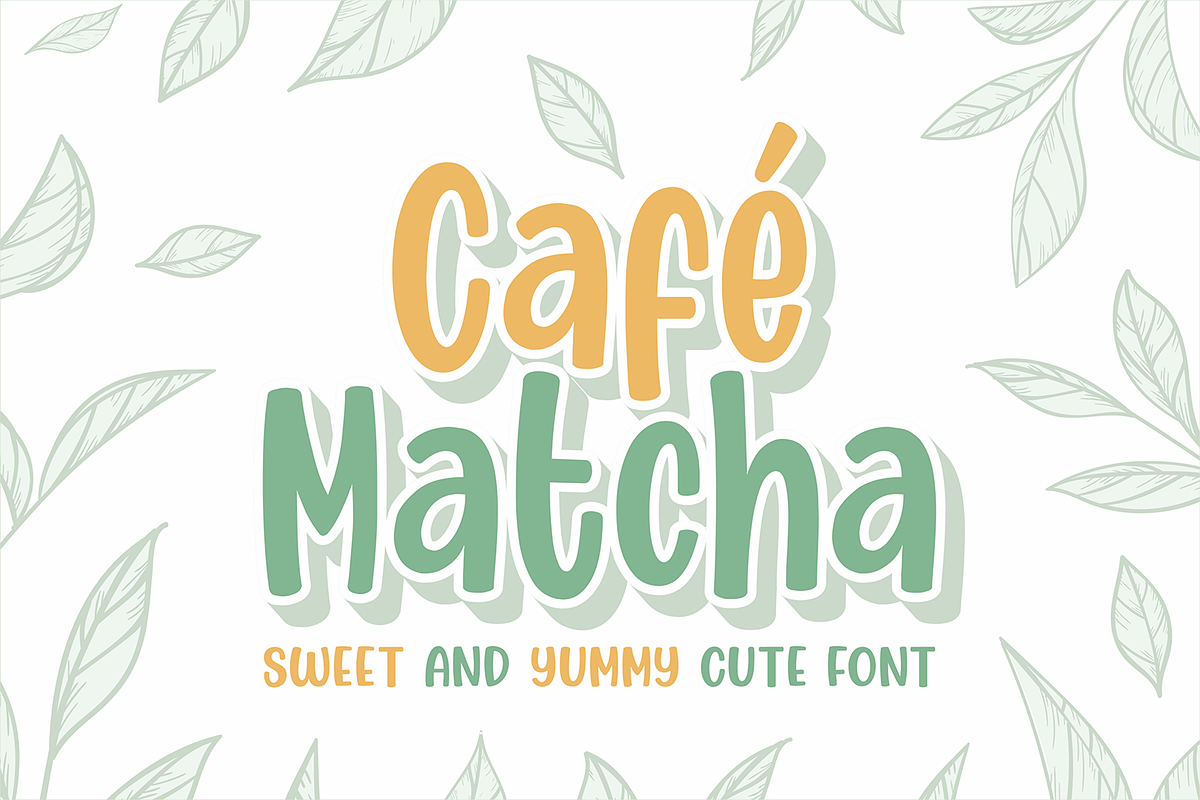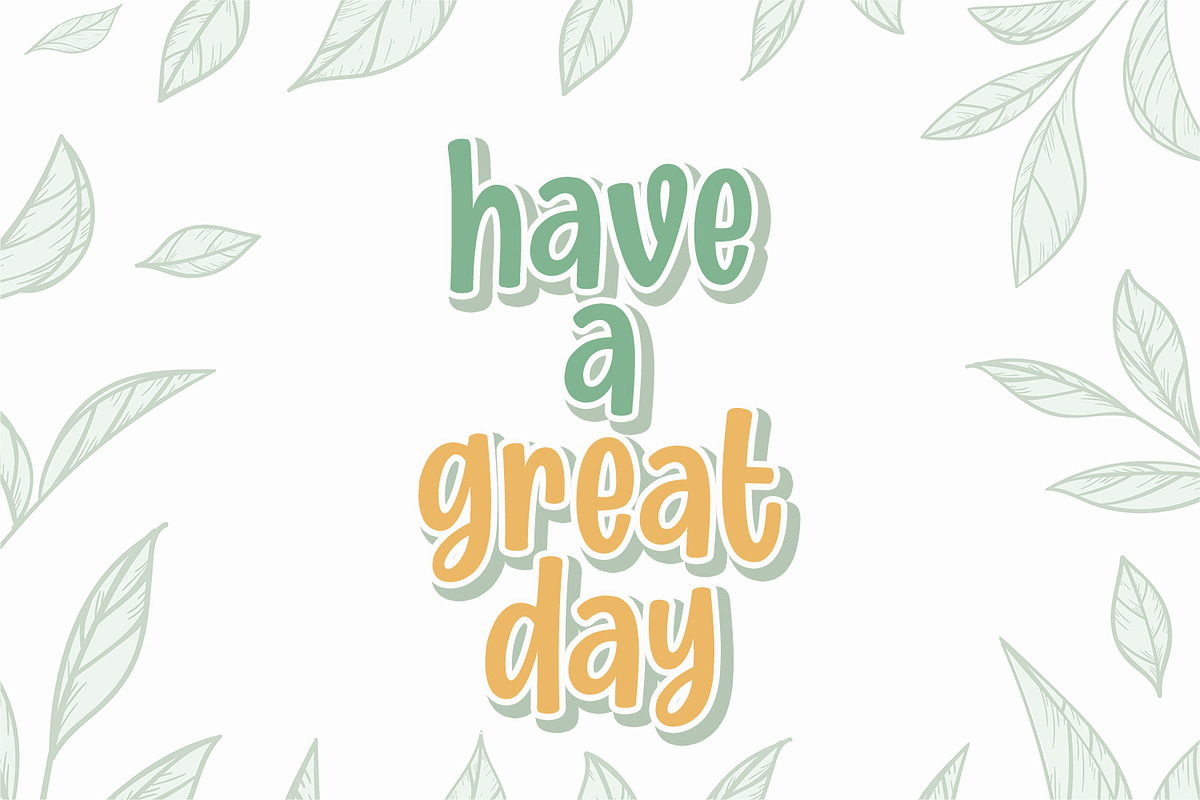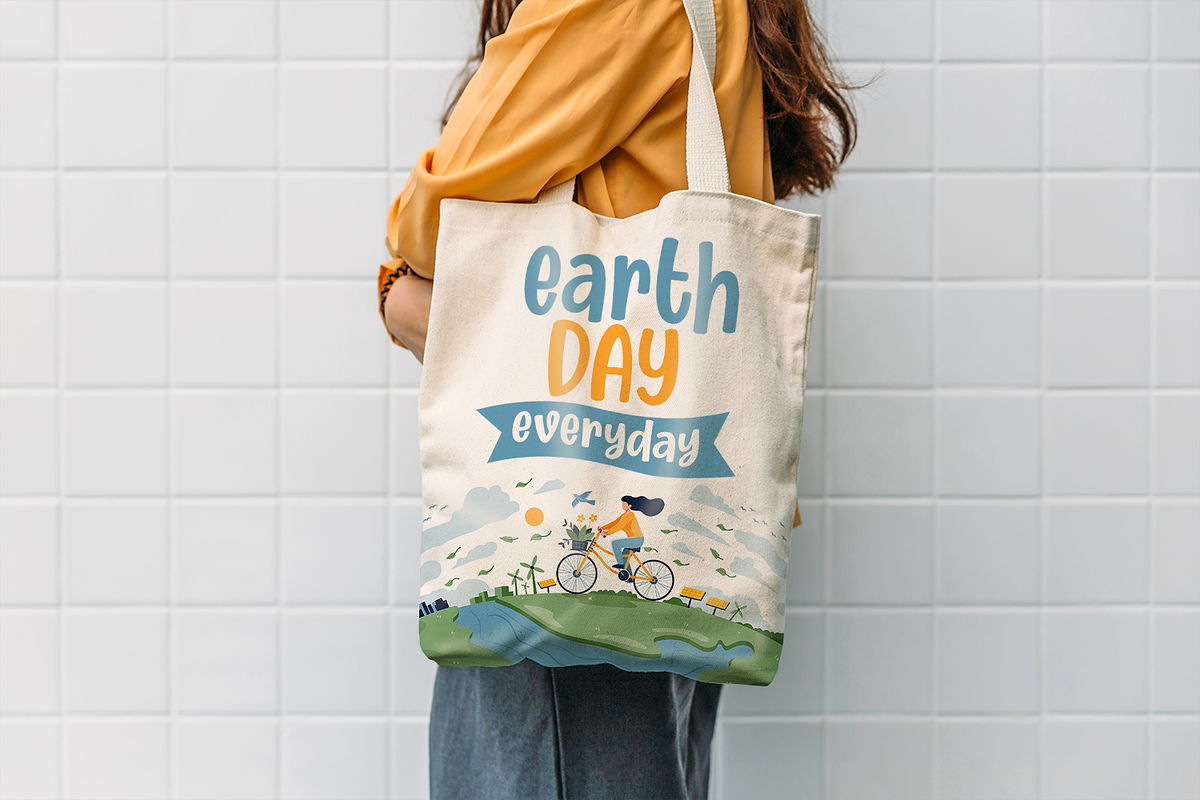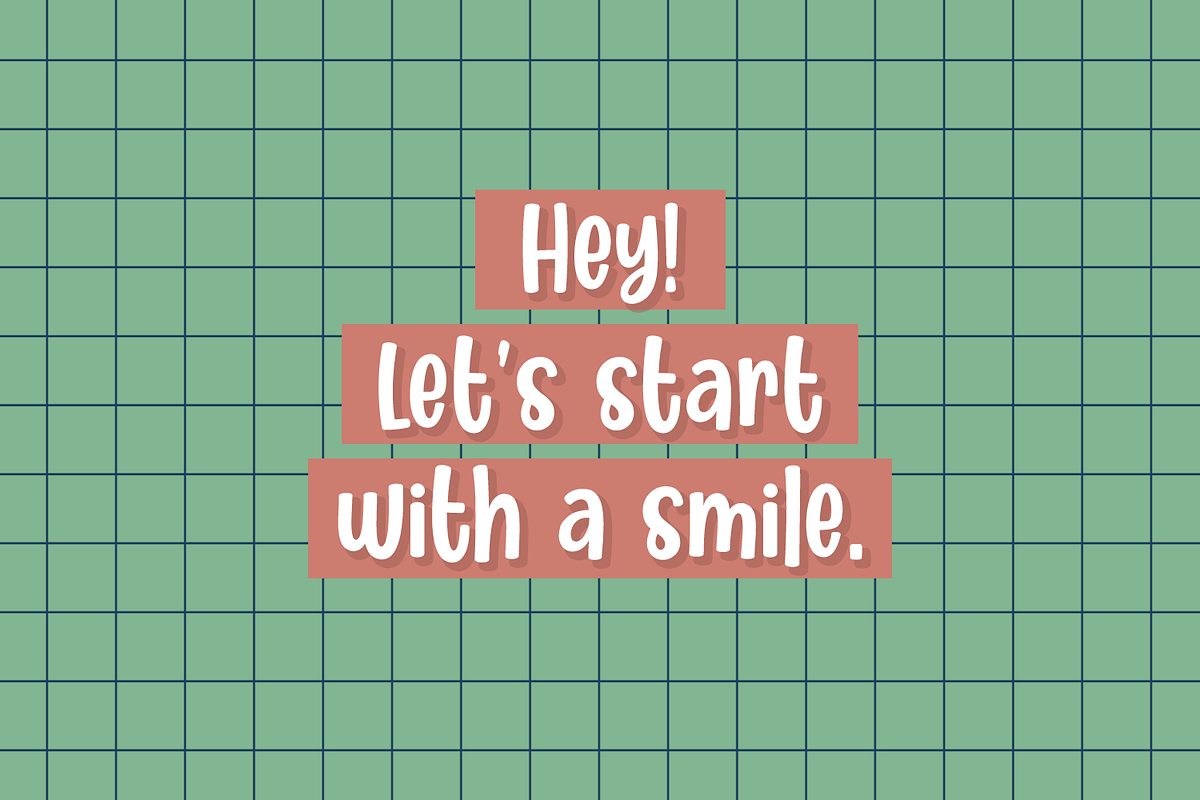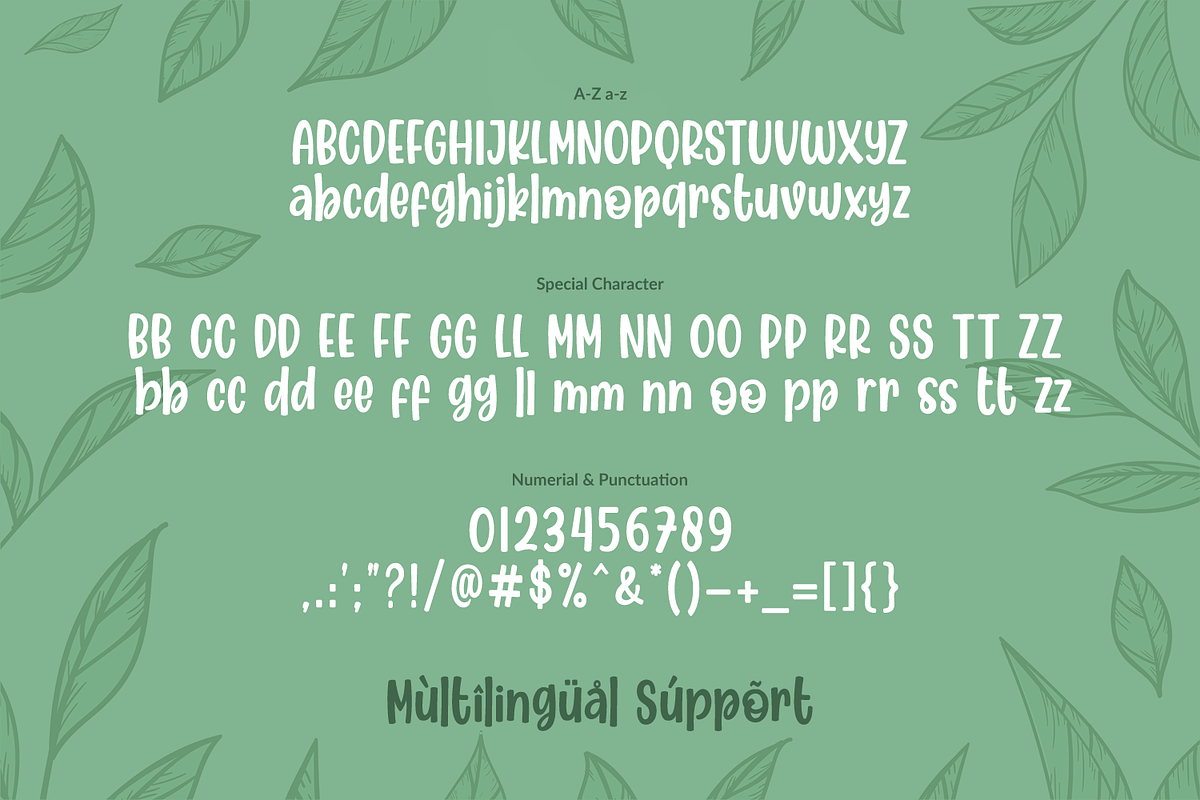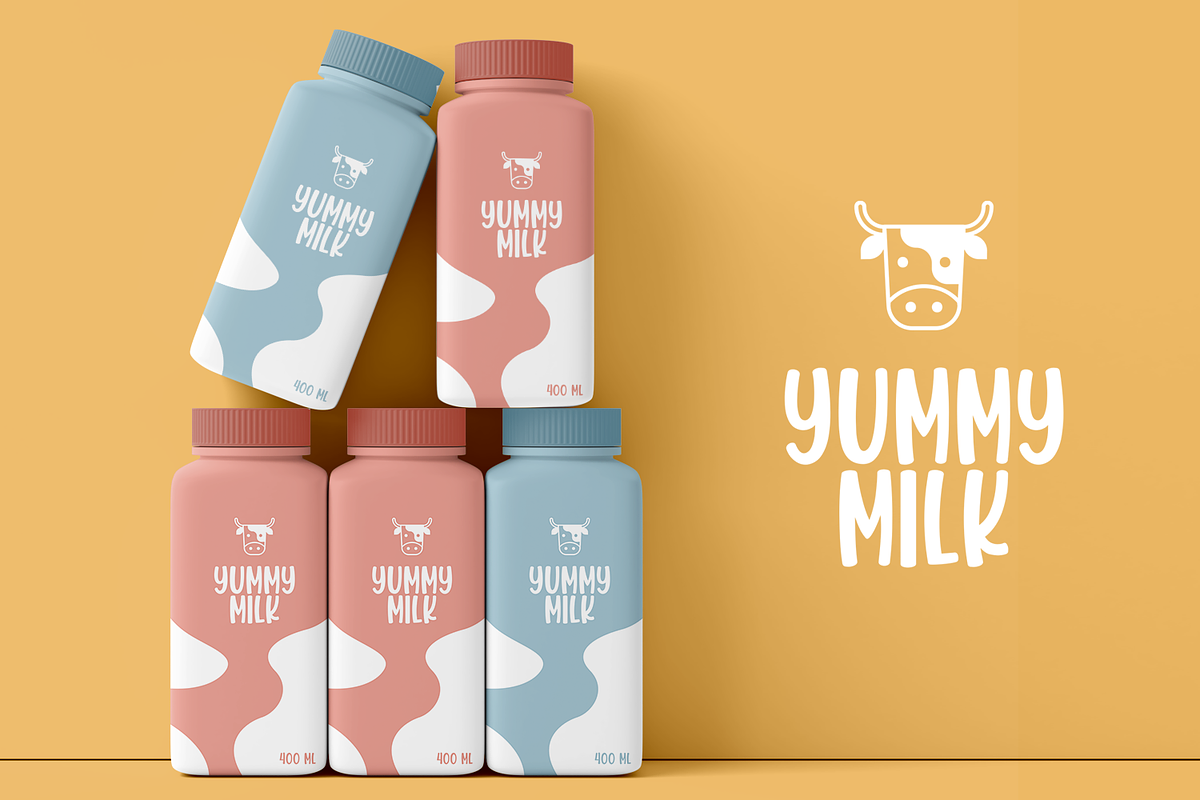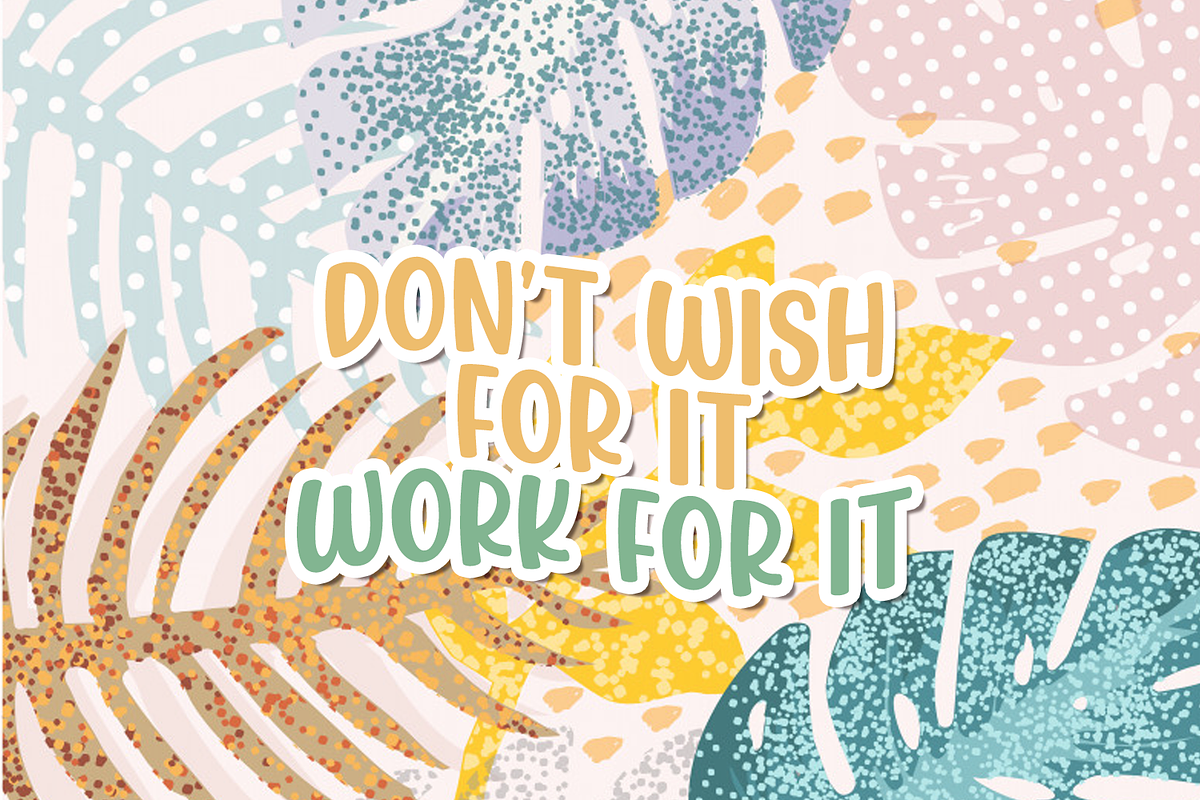
Cafe Matcha
Cafe Matcha is a sweet and yummy cute font. This font has strong and cute shape. It's unique style makes it incredibly fitting to a large pool of designs. Be inspired by Cafe Matcha and create something fun and memorable!